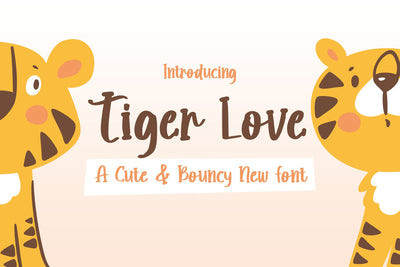
Tiger Love Font (Cute Fonts, Kids Fonts, Playful Fonts)
Looking for Cute Fonts, Kids Fonts, Playful Fonts? Introducing the wonderful Tiger Love Font.